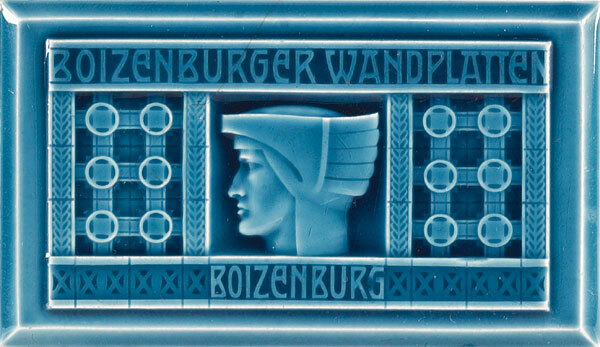
This font was inspired on an Art Nouveau tile I found in Google search when I was doing research for a Pepin Press book on Art Nouveau tiles. I loved the lettering on it so I traced for the cover but they changed the cover at the last minute and it never got anyther until recently when I completed the rest of the characters. This font is free for non-commercial use and donationware for commercial use. Make a donation through PayPal my account there is: turoturom@yahoo.es
This font was inspired on an Art Nouveau tile I found in Google Search when I was doing research for a Pepin Press book on Art Nouveau tiles. I loved the lettering on it so I traced it and completed the rest of the characters.